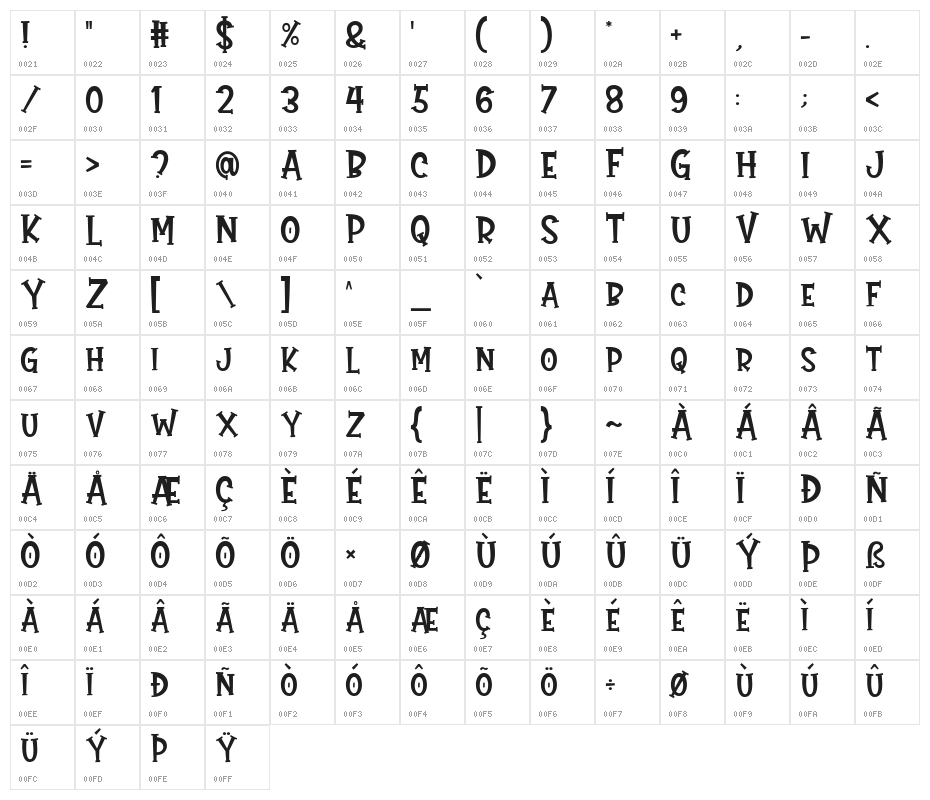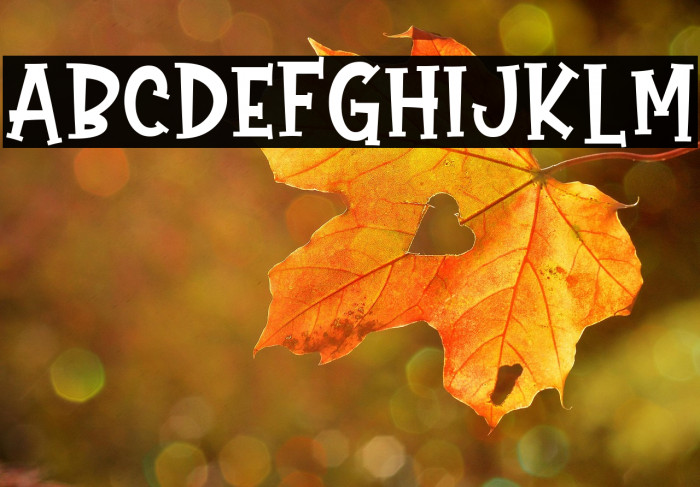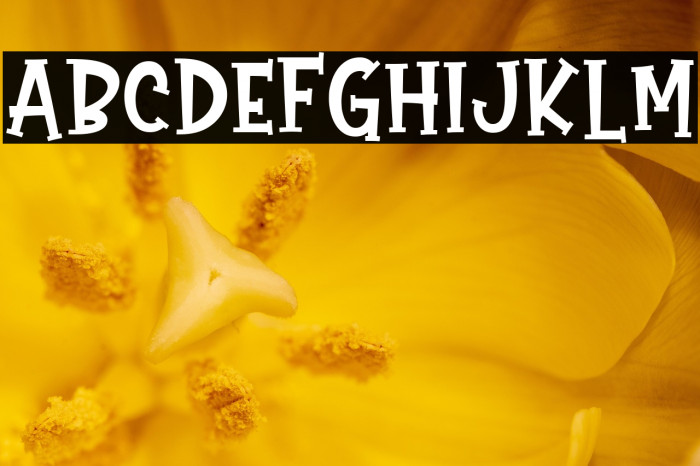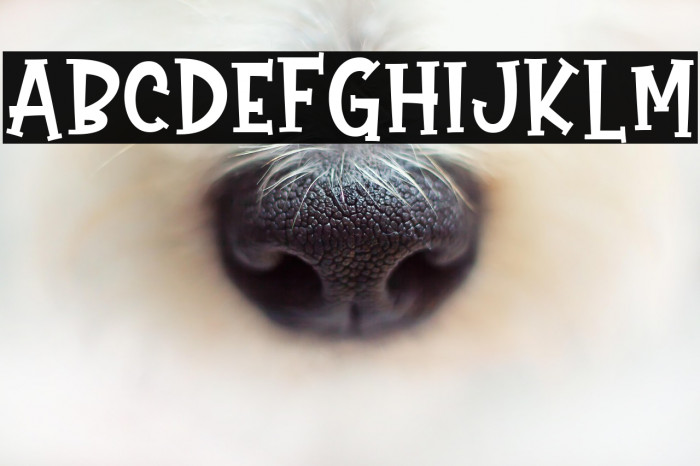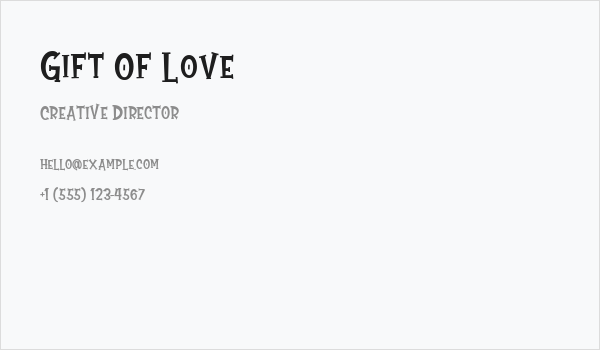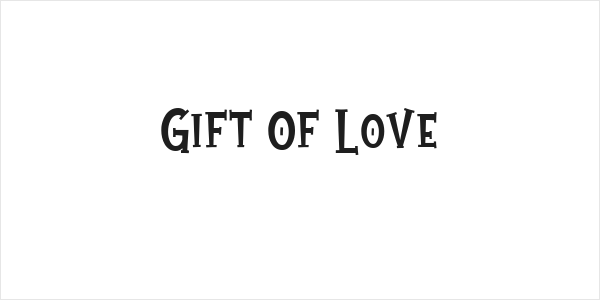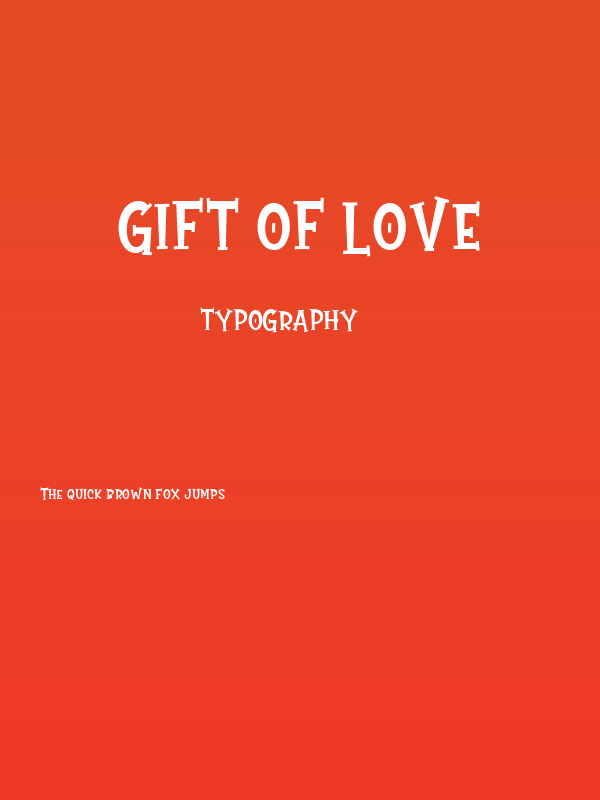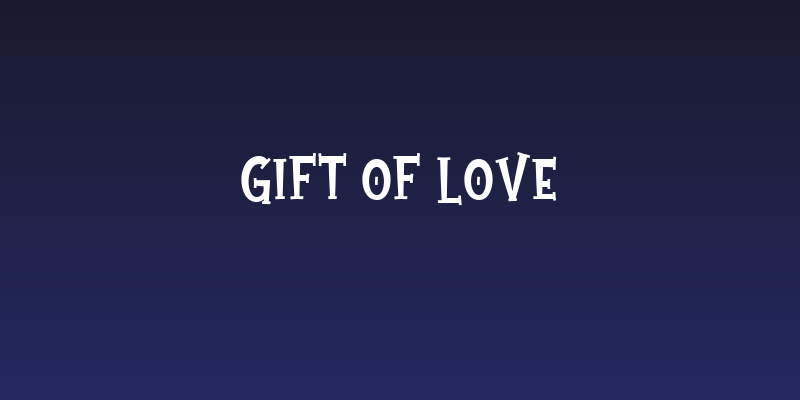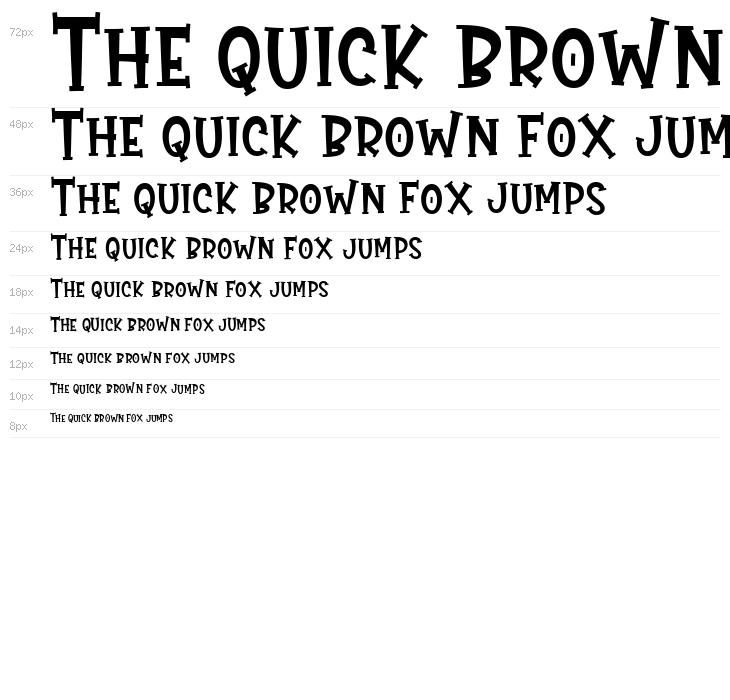
Gift Of Love Font
Gift Of Love Description
This font features a playful and whimsical style with a hand-drawn appearance. The letters are bold and slightly irregular, giving a sense of movement and energy. The uppercase and lowercase characters maintain a consistent style, with exaggerated serifs and a slight tilt, adding to the casual and fun aesthetic. The numbers and special characters follow the same design principles, ensuring a cohesive look across all glyphs. This font is ideal for projects that require a touch of creativity and informality, making it perfect for children's books, playful branding, and casual invitations.
| Proposed Projects | Children's books, playful branding, casual invitations, greeting cards, and posters. |